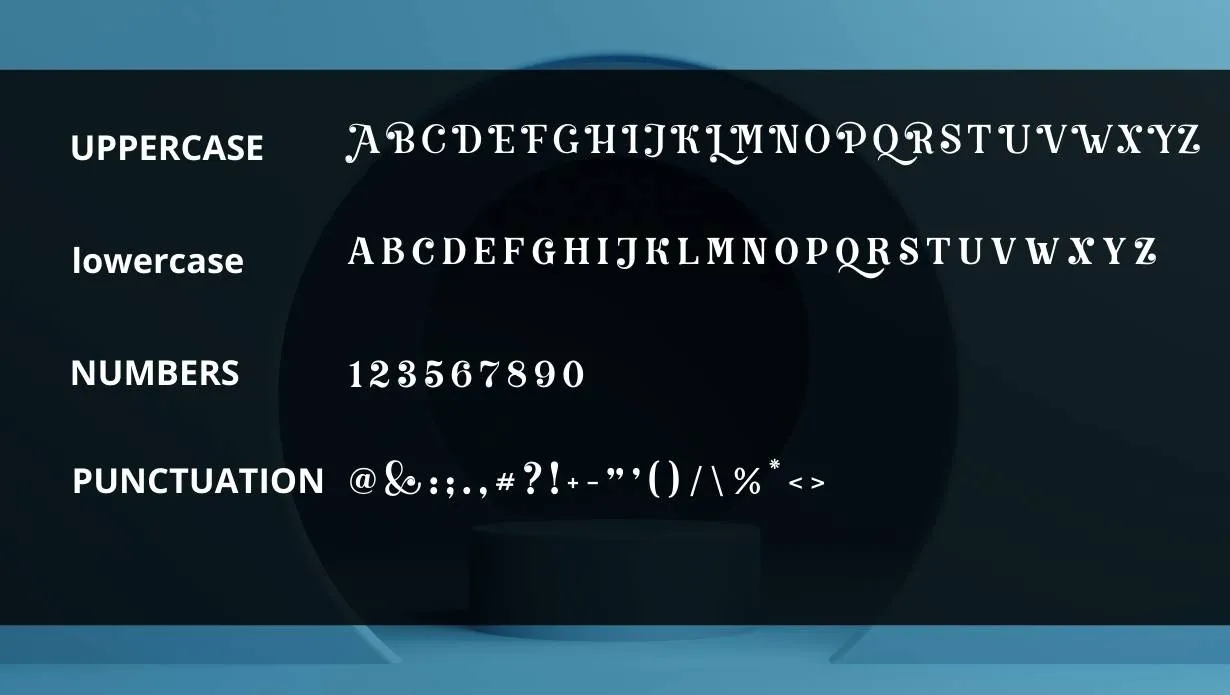
Biago Font Free Download
Biago Font is a display typeface that was designed by Biagio Di Benedetto and released by Font Bureau in 2010. The design is inspired by early-20th-century advertising and packaging typography. He was one of the first designers to create a truly original font design.
Biago Typeface is a great choice for headlines, logos, and other displays where you want to add a touch of retro style. The vidaloka font is a great Display typeface and is best for pairing procedures with this typeface.